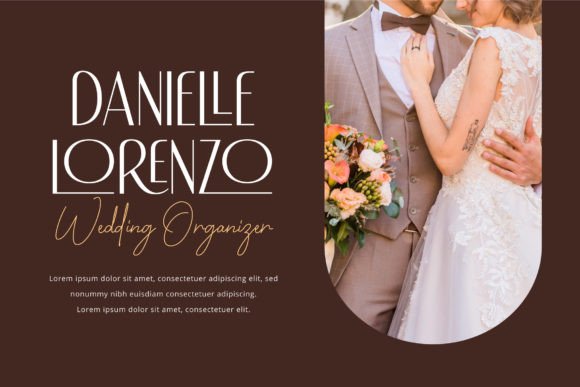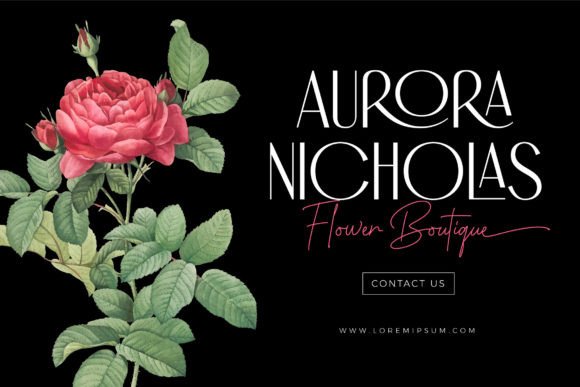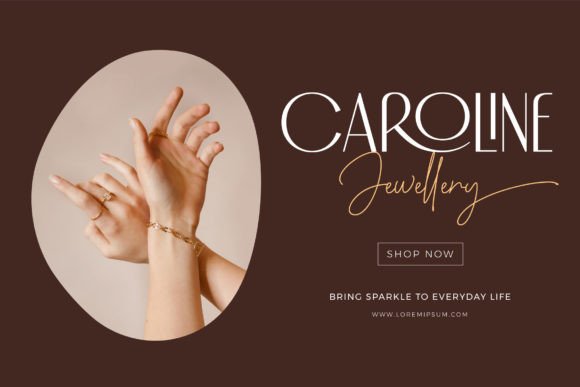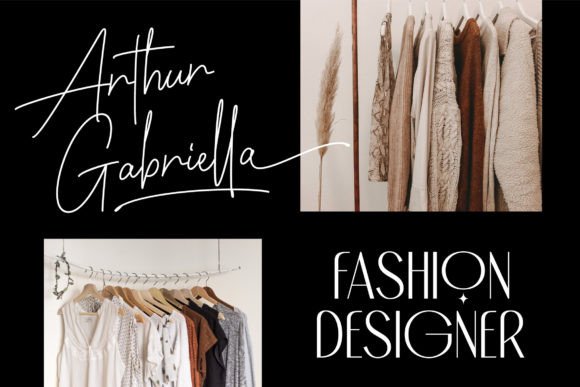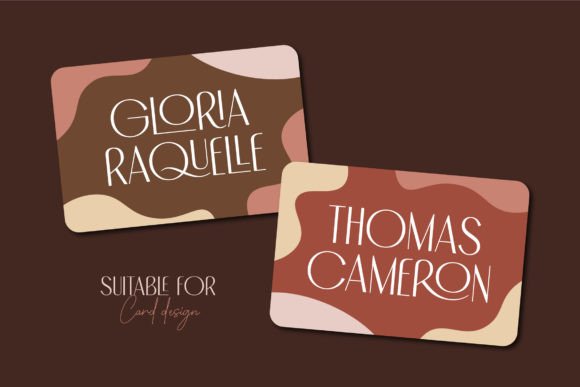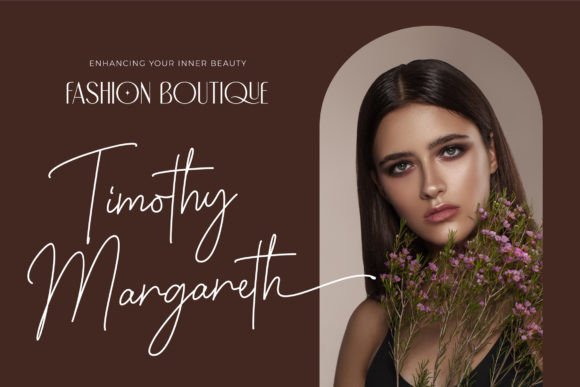
The Perfect Blend of Elegance and Creativity: Introducing Charlotte Veronica Font
Have you ever found yourself pouring over a beautiful fashion magazine, mesmerized by the intricate details and elegant typography that bring the pages to life? For designers and creatives, those ‘aha’ moments are what inspire us to push the boundaries of our craft. And that’s exactly what the Charlotte Veronica Font is designed to do – add a touch of sophistication and flair to your next fashion design project.
As a versatile display font, Charlotte Veronica is perfect for a wide range of applications, from high-end fashion labels to elegant wedding invitations. Its PUA encoding ensures that you can access all the glyphs and swashes effortlessly, giving you the freedom to experiment and create something truly unique. Whether you’re a seasoned designer or just starting out, the Charlotte Veronica Font is a valuable addition to your toolkit.
Key Features of Charlotte Veronica Font
- Unique Characteristics: Charlotte Veronica features elegant and sophisticated lettering with a touch of vintage flair, making it perfect for high-end designs, invitations, and formal events
Designer Review: Charlotte Veronica Font
Overall, I’d say the Charlotte Veronica Font is a solid addition to any designer’s toolkit. ✨ The font’s elegant, sophisticated feel makes it perfect for luxury brands, high-end fashion, and even fine dining. The delicate curves and refined lines evoke a sense of classic sophistication that’s hard to resist.
The font’s versatility is another major plus. ✨ It’s available in a range of weights and styles, making it easy to adapt to different design projects. From display headings to body text, Charlotte Veronica Font has got you covered. Additionally, the font’s readability is excellent, making it suitable for both digital and print applications.
- ⚠️ The font may not be as versatile for more casual or playful designs. While it’s excellent for luxury brands, it might not be the best fit for younger or edgier audiences.
- ⚠️ Some users may find the font a bit too ornate, which can make it difficult to read at very small sizes or in low-resolution environments.
In conclusion, Charlotte Veronica Font is a beautiful, elegant typeface that’s perfect for high-end design projects. While it may not be the most versatile font out there, it’s an excellent choice for luxury brands and designers looking to add a touch of sophistication to their work.
Tip: Use Charlotte Veronica Font for titles and headings to add a touch of elegance to your designs.
Tip: Use the font’s script style to create beautiful, handwritten text effects.
Tip: Use the font’s elegant style to create professional-looking documents and presentations.
Charlotte Veronica Font is perfect for:
- Personalized gifts and cards.
Remember to use the font consistently throughout your design to create a cohesive and professional look.